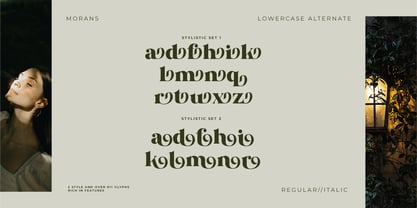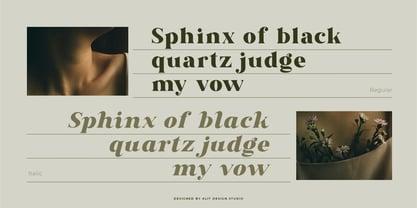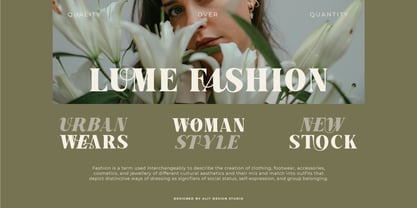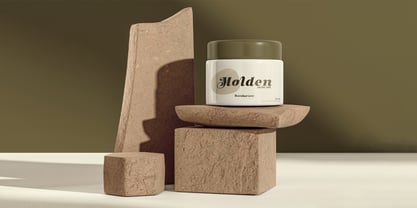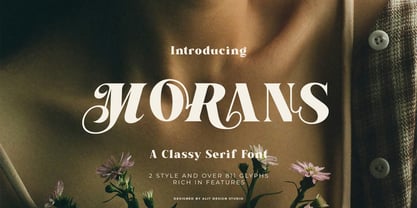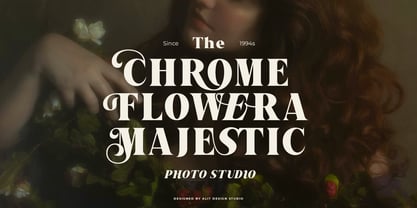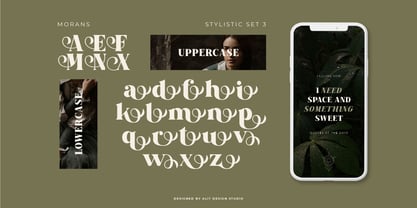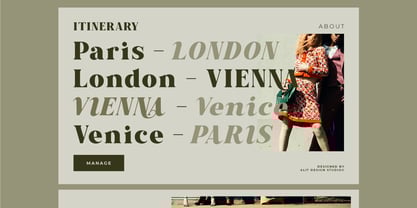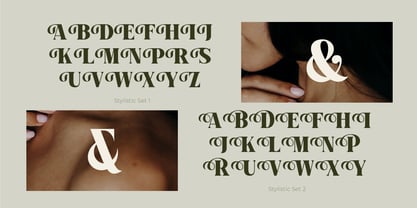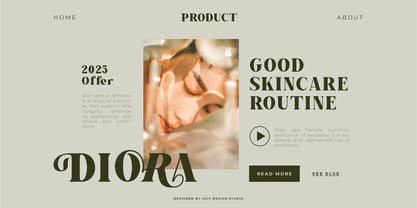
Morans
La famille de polices Morans a été conçue par Alit Suarnegara et publiée par Alit Design. Morans contient 2 styles et options de package familial.
Morans Font: A Masterpiece of Classy Serif Typography
Designed by Alit Design Studio, Morans is a premium serif typeface that embodies elegance, sophistication, and versatility. It’s perfect for designers looking to make a bold and refined statement in their projects.
Key Features
• Two Distinct Styles
Morans comes in two carefully crafted styles, offering flexibility for various design needs. Whether you're aiming for a modern sleek look or a vintage-inspired feel, this font can adapt to your creative vision.
• Extensive Glyph Set
With over 811 glyphs, Morans is rich in typographic features. It includes unique alternates, ligatures, and swashes, allowing for diverse and artistic lettering compositions. This makes it ideal for customization and creating distinctive visual identities.
• Impeccable Details
Morans is characterized by sharp serifs, delicate curves, and a flawless balance between thick and thin strokes. Its intricate craftsmanship ensures that every character feels luxurious and meticulously designed.
Perfect For
• Branding: Ideal for creating memorable logos, wordmarks, and brand identities that exude elegance and professionalism.
• Editorial Design: Perfect for magazine covers, book titles, and high-end fashion spreads, where a sophisticated and artistic touch is required.
• Packaging: Elevate luxury packaging for cosmetics, perfumes, or other premium products.
• Web Design: Adds a classic yet modern touch to website headers, hero sections, and promotional graphics.
Why Choose Morans?
1. Timeless Versatility: A balance between vintage charm and modern minimalism ensures Morans stays relevant across diverse design trends.
2. Quality Over Quantity: Each glyph is crafted with precision and artistry, offering designers a superior typographic experience.
3. Rich Features for Creativity: The inclusion of alternates, swashes, and ligatures makes it easy to achieve unique and customized designs without limitations.